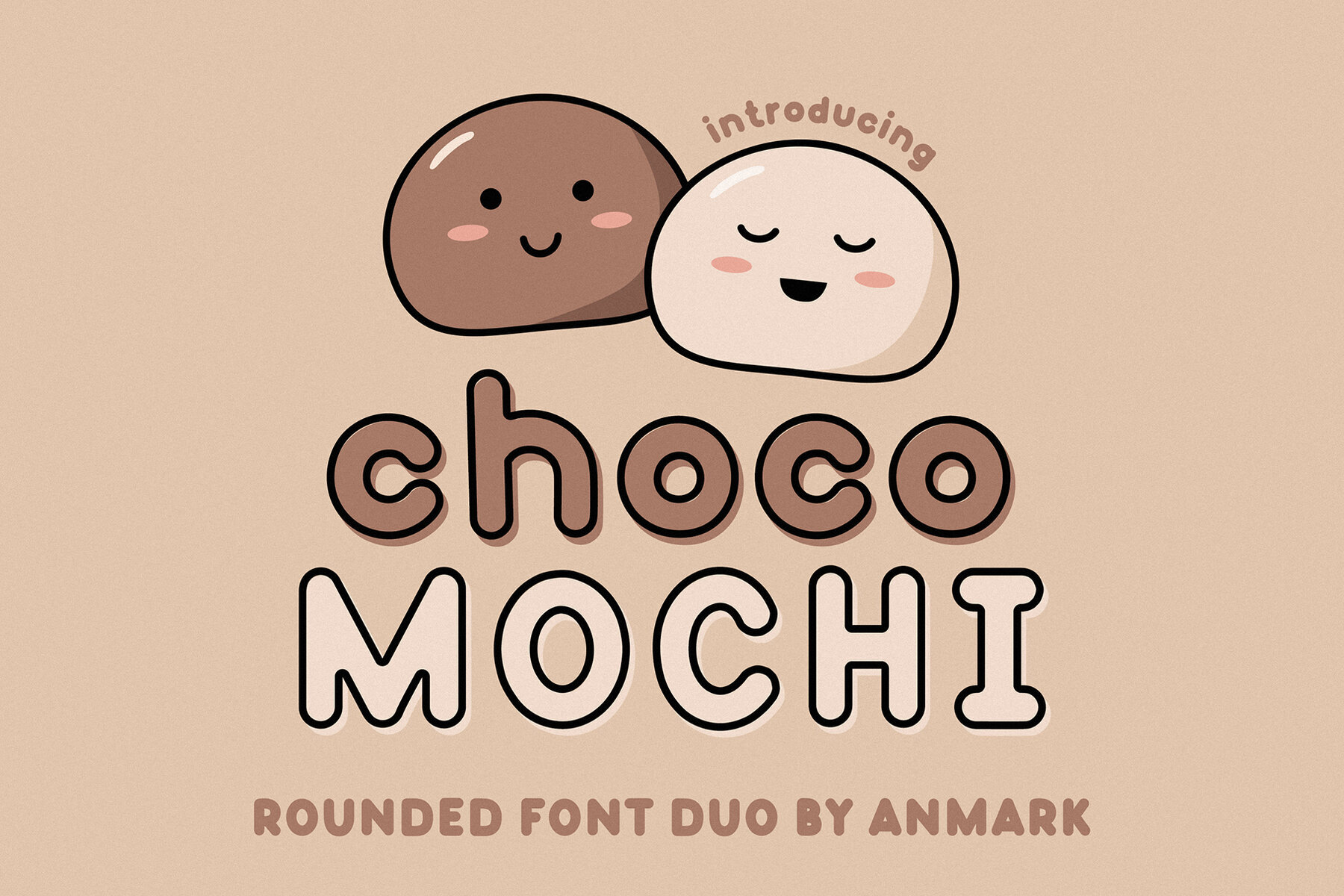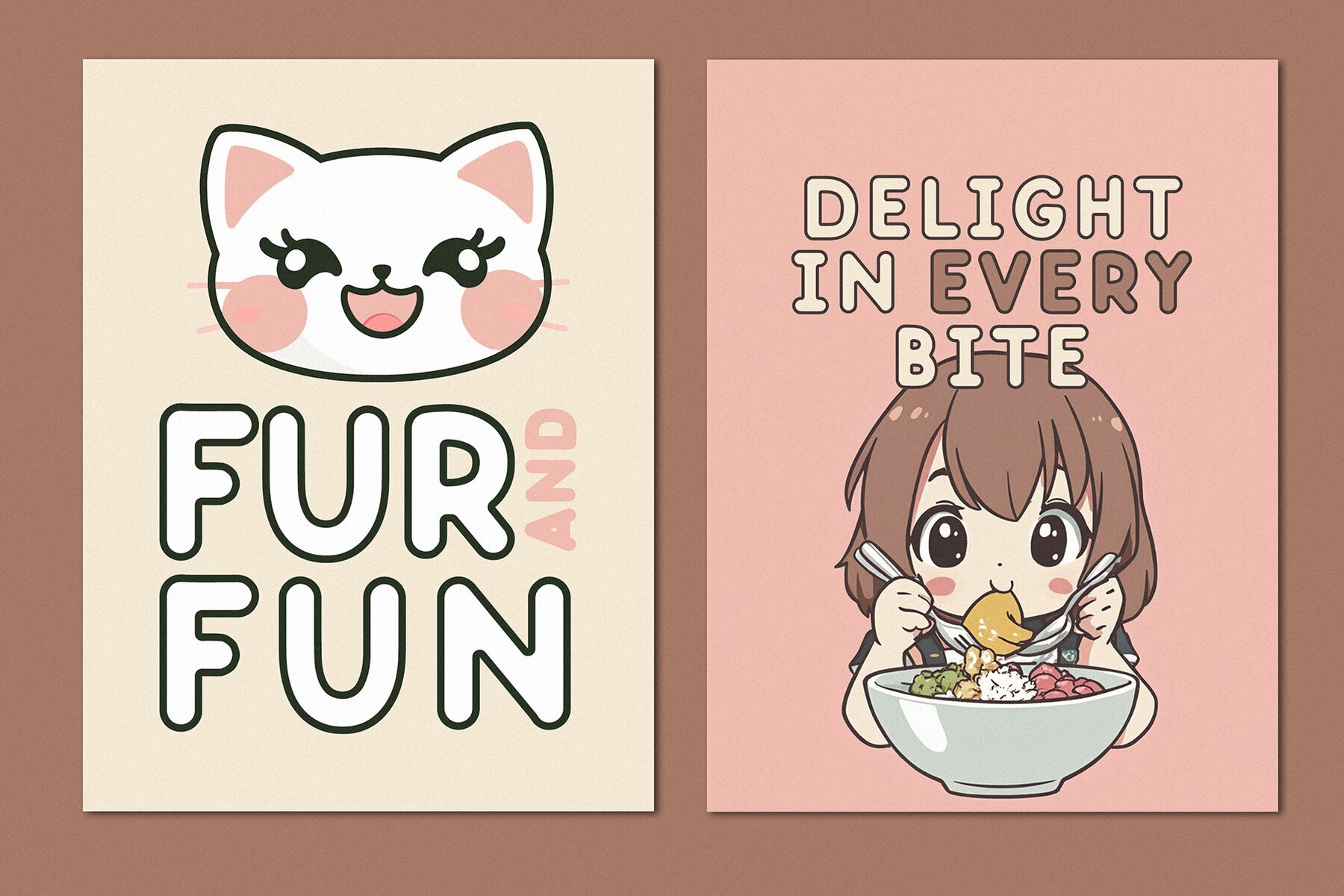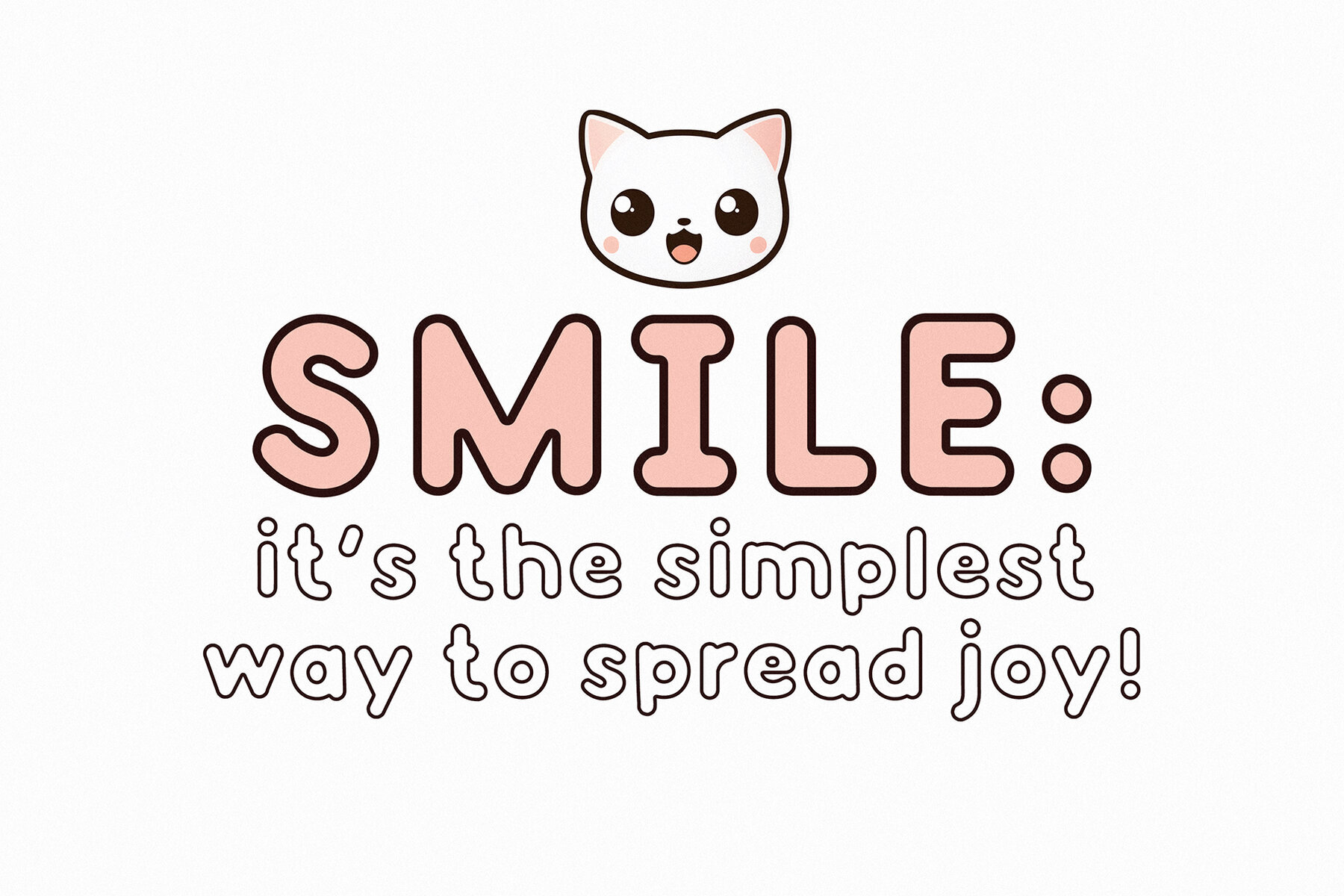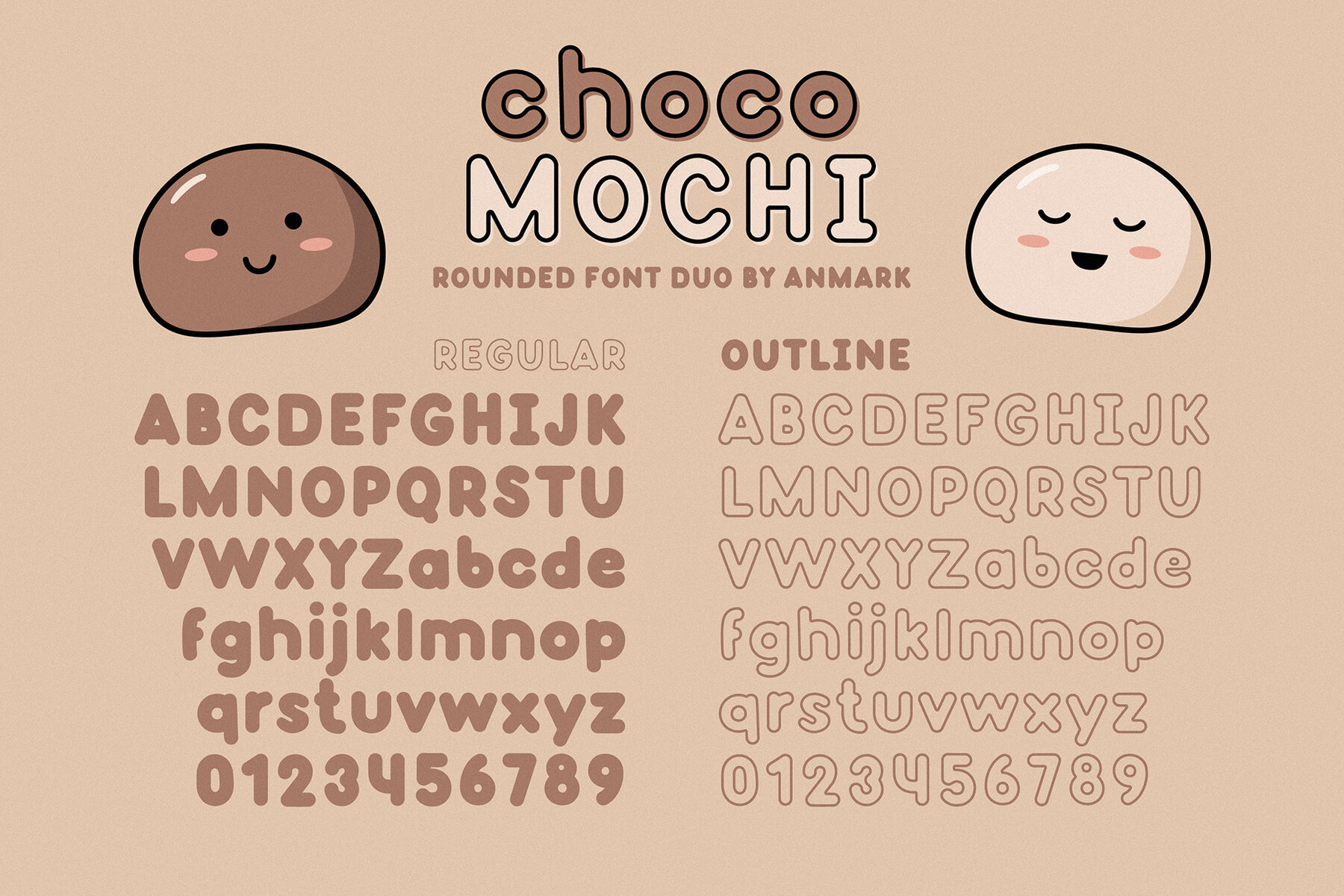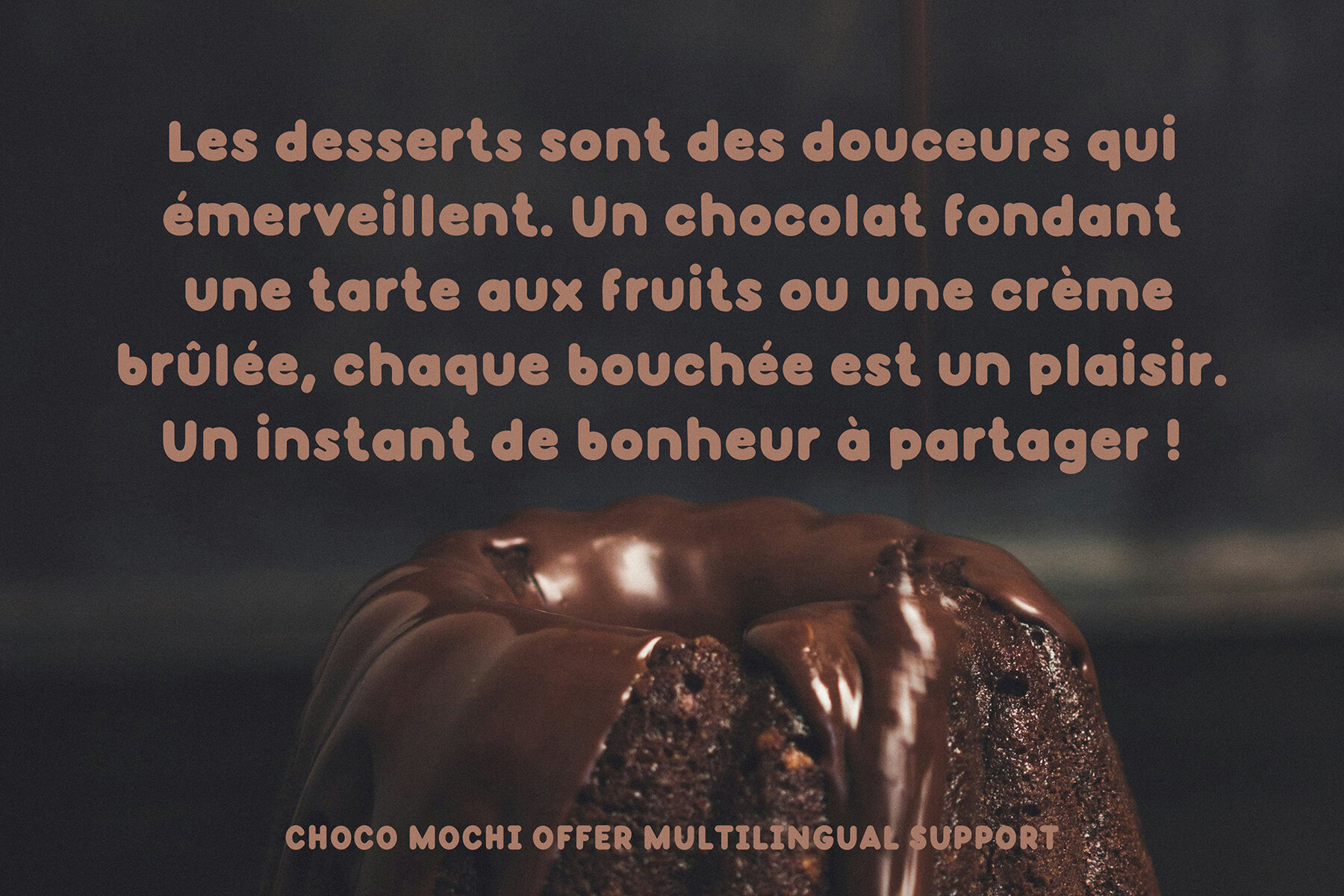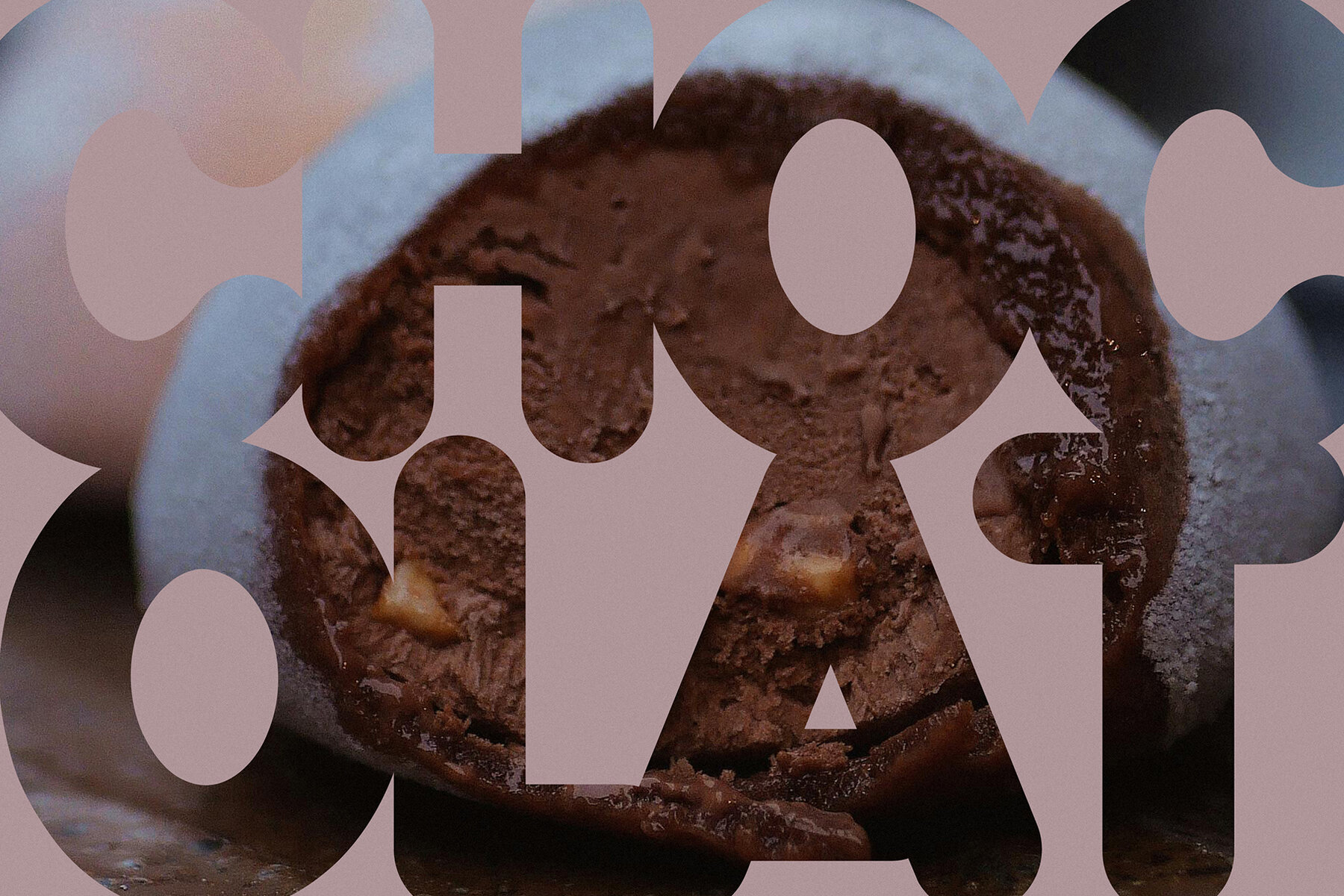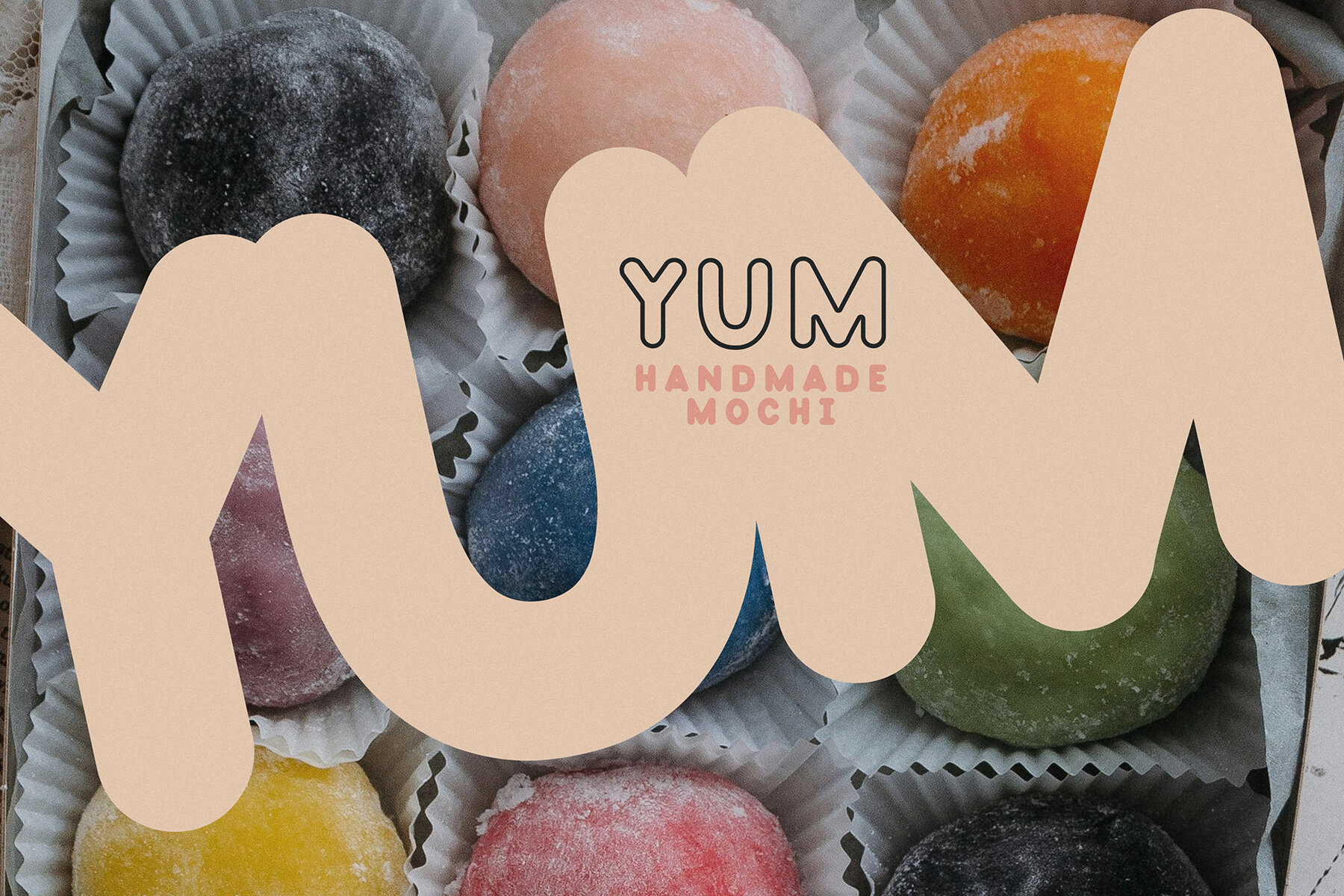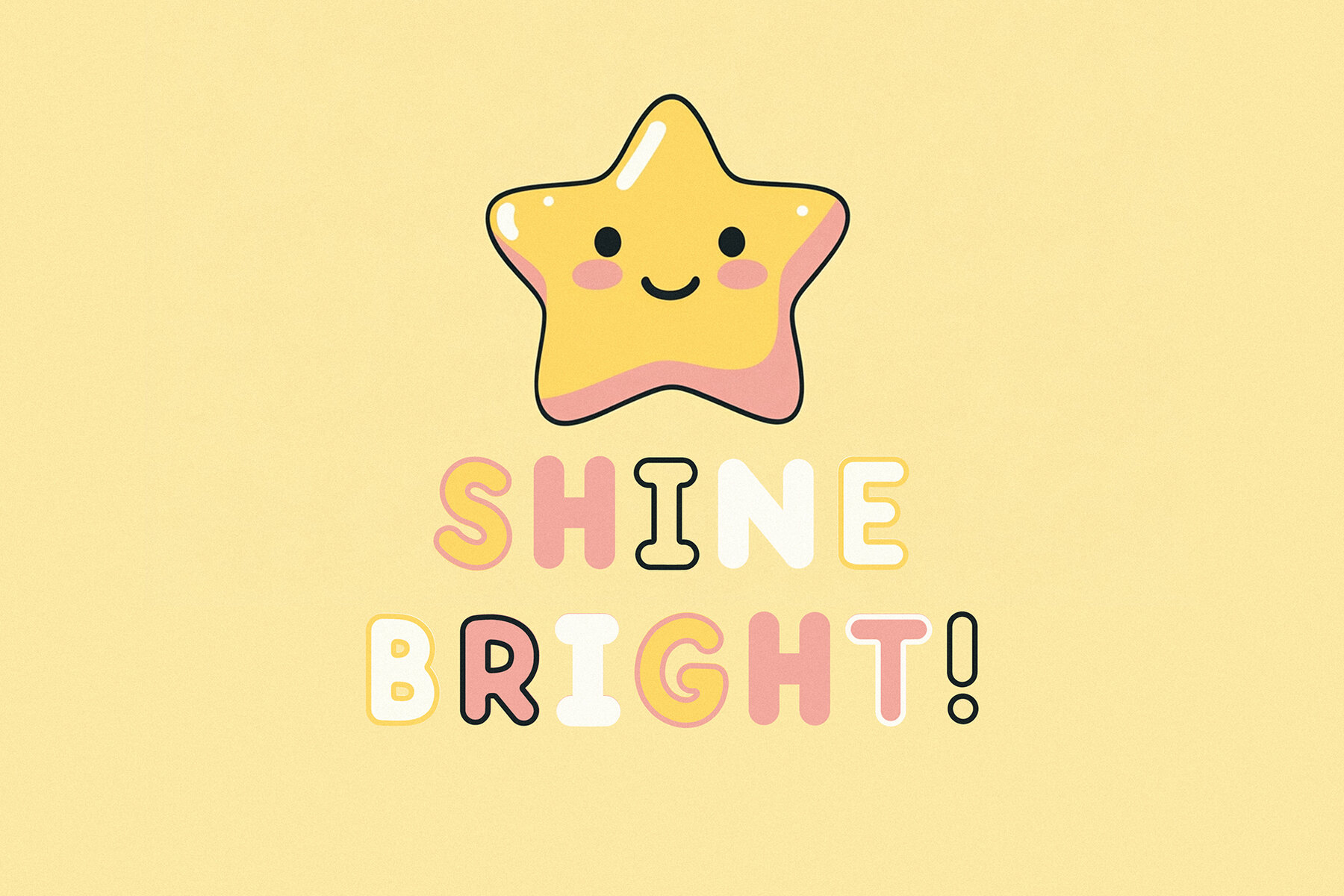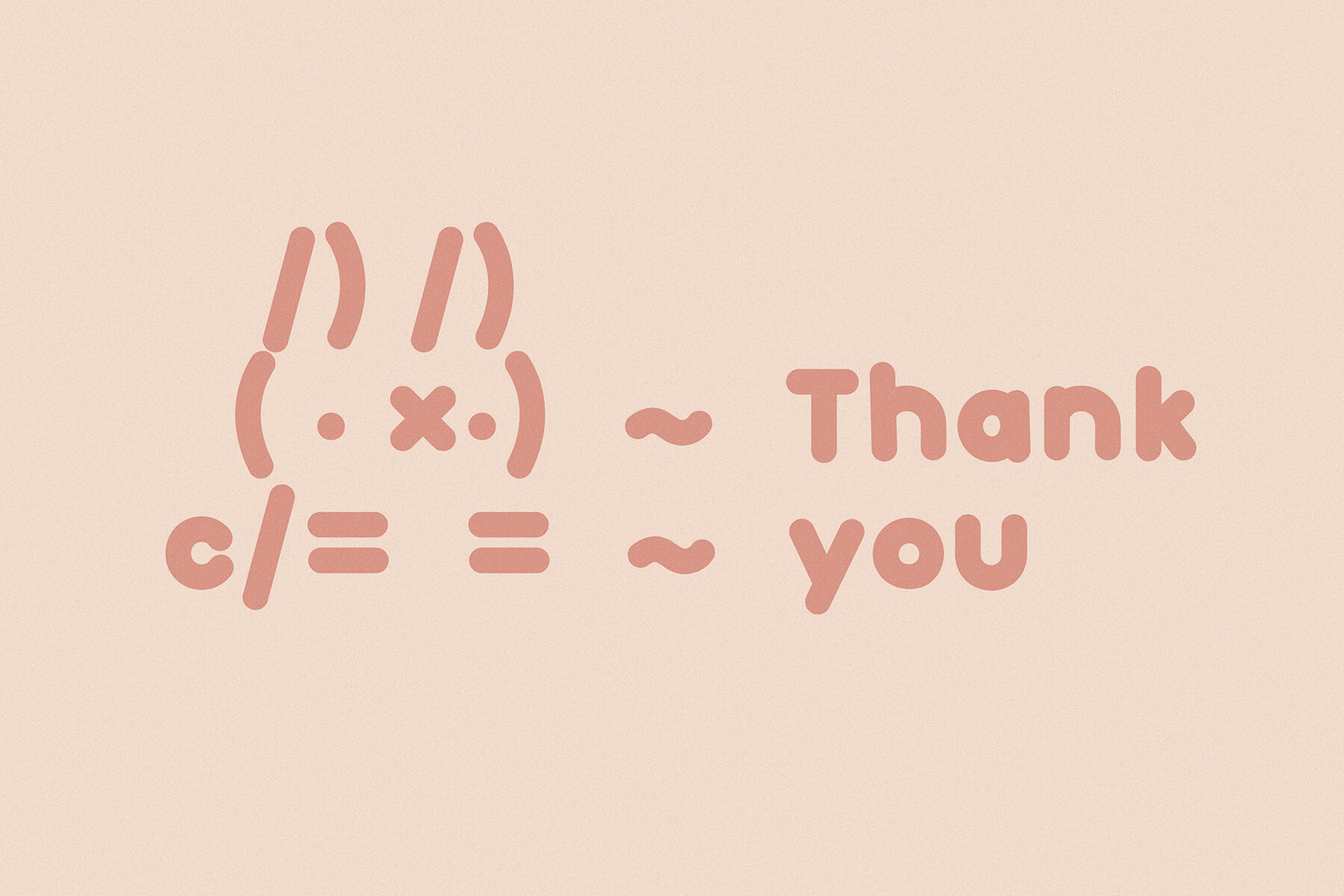
Choco Mochi Font
Choco Mochi
Choco Mochi Outline
Choco Mochi is a charming, playful, and rounded font, perfect for a wide range of creative projects. This font's delightful charm and warmth make it ideal for posters, menus, and invitations—any design aiming to spread smiles. With its rounded edges and whimsical style, Choco Mochi is perfectly suited for children's products, food branding, and informal events. Its readability ensures your messages stand out with an inviting flair, making it an excellent choice for social media graphics, packaging, and any design requiring a friendly touch.
The font includes Choco Mochi Regular and Choco Mochi Outline, offering extensive language support for English and European Latin-based languages such as French, Italian, Spanish, Portuguese, German, Swedish, Norwegian, Danish, and Finnish. Moreover, Choco Mochi pairs beautifully with the Pantone Color of the Year for 2025, Mocha Mousse, enhancing its delightful appeal and crafting a cozy atmosphere in your designs. Explore the joyful possibilities in your creative endeavors with Choco Mochi today!